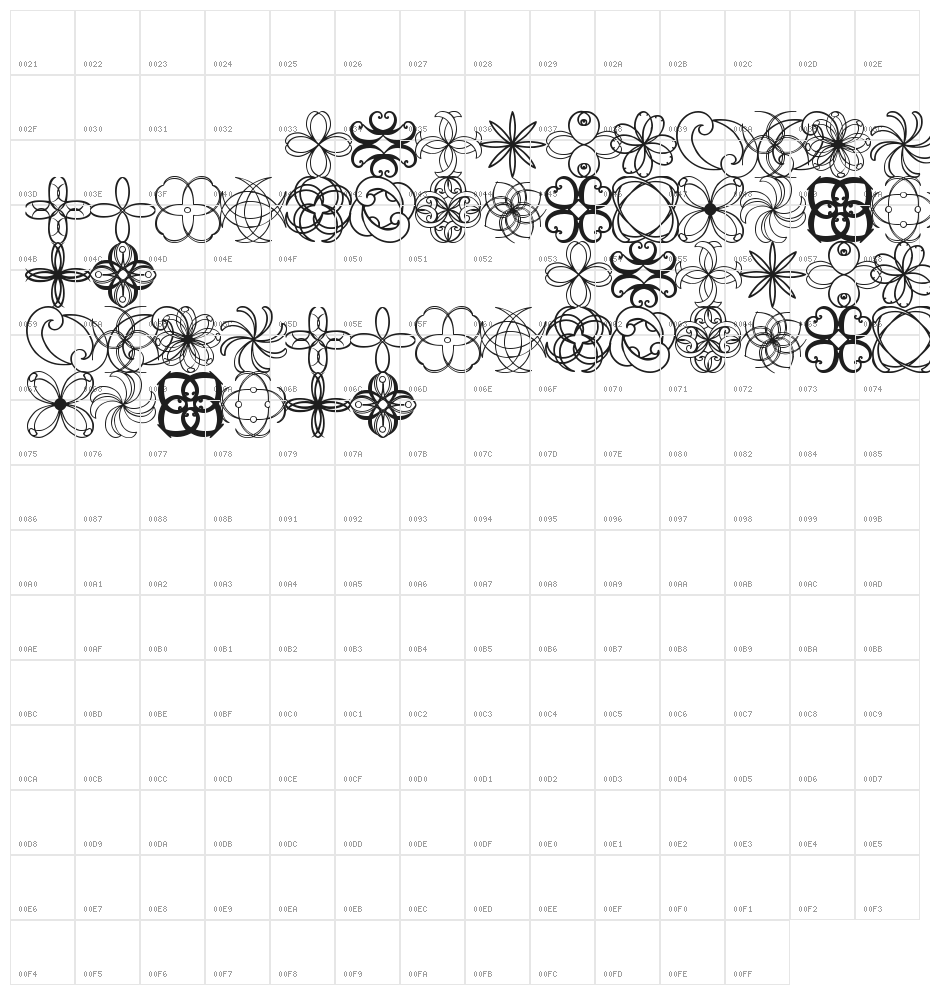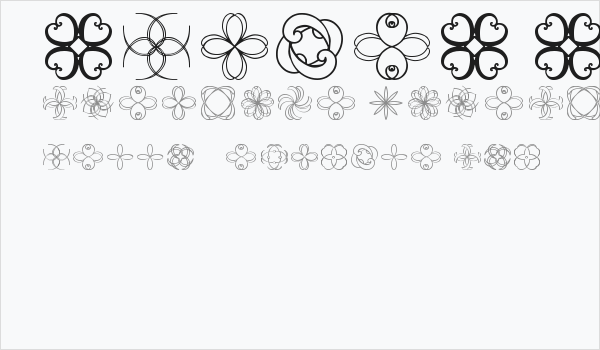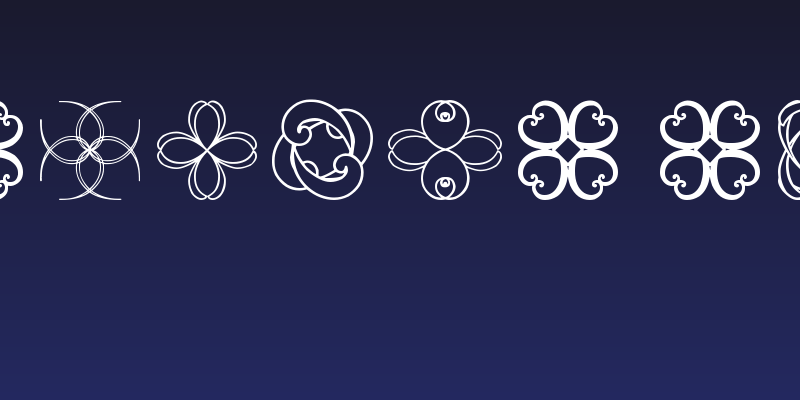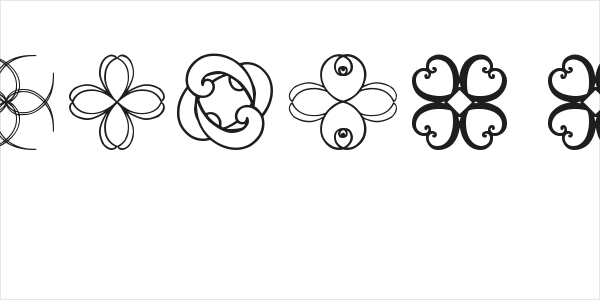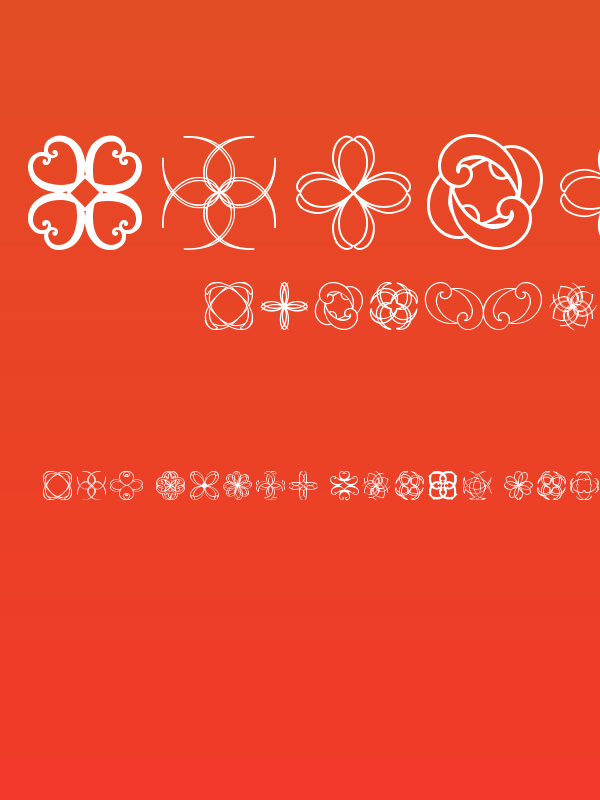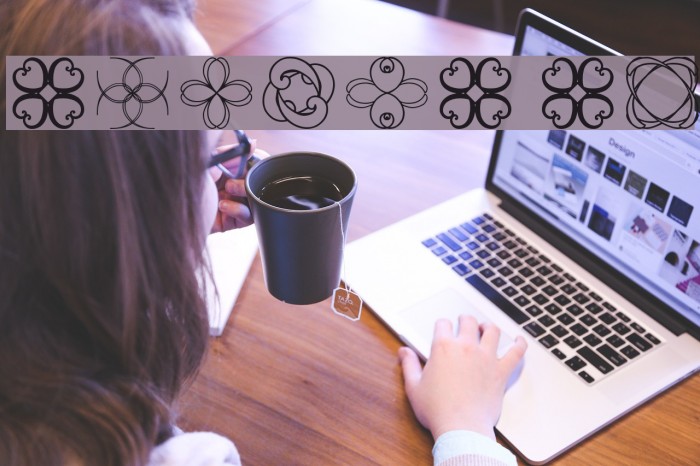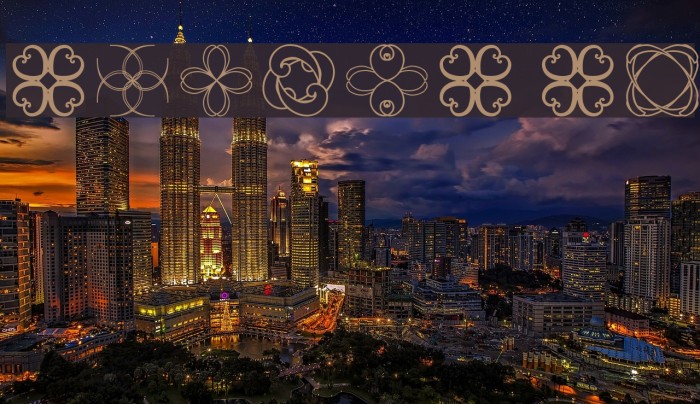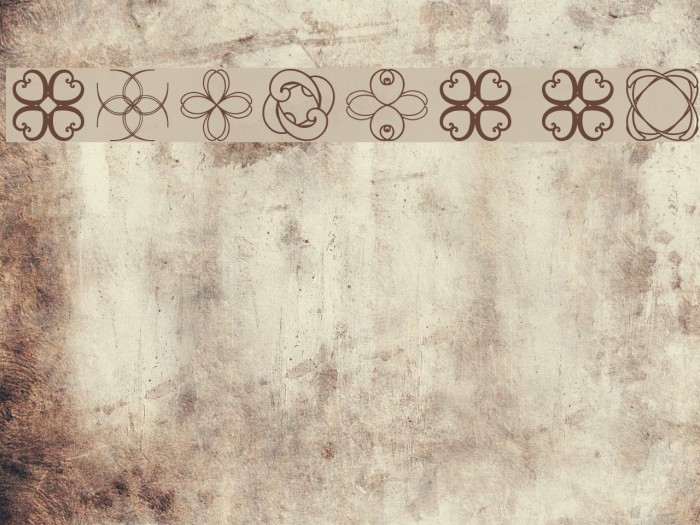
Shapes St Font
Shapes St Description
A decorative dingbat font featuring a variety of intricate geometric and floral shapes, each glyph presenting a unique ornamental design with thin, consistent line work and symmetrical patterns.
| Use Case | Logos, Borders, Decorative elements |
| Proposed Projects | Invitations, decorative borders, scrapbooking, branding accents, digital art, pattern creation. |